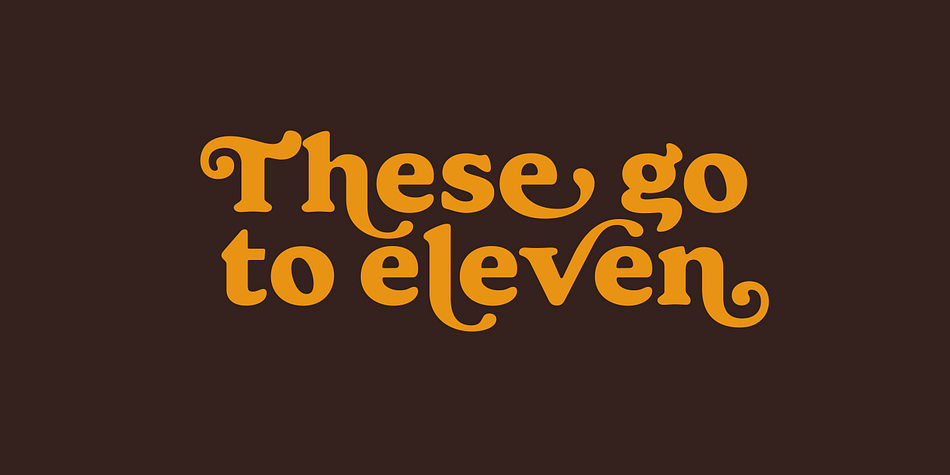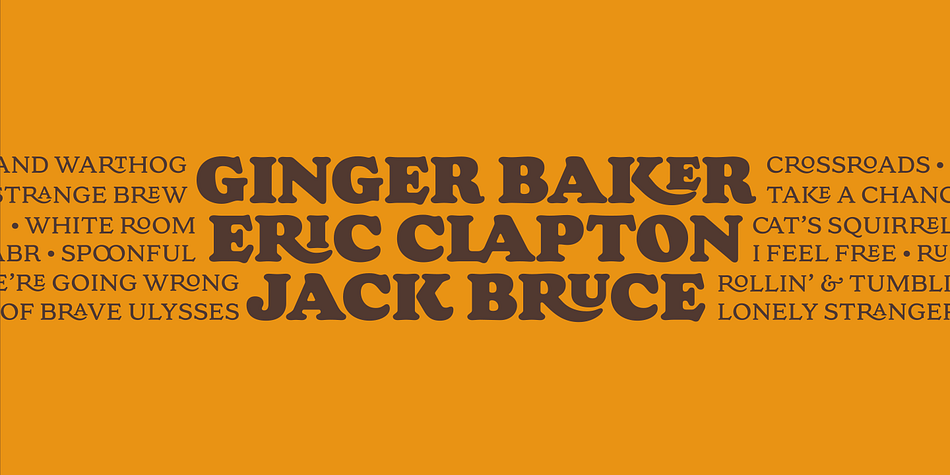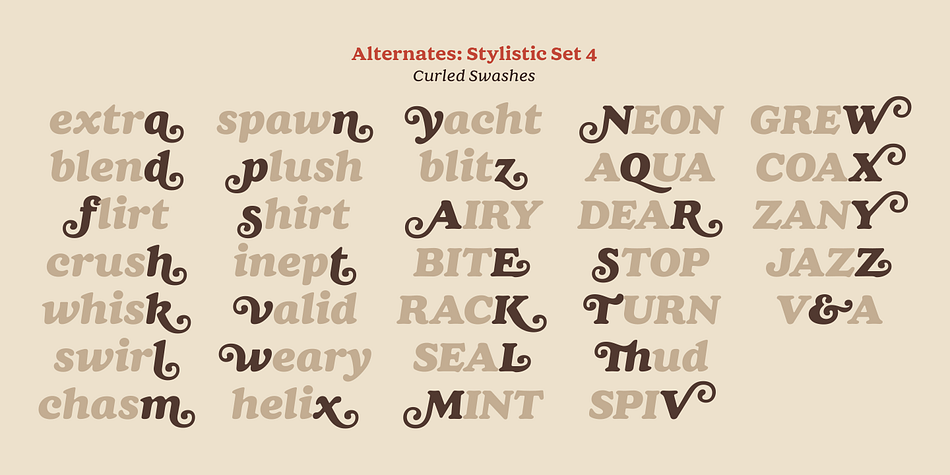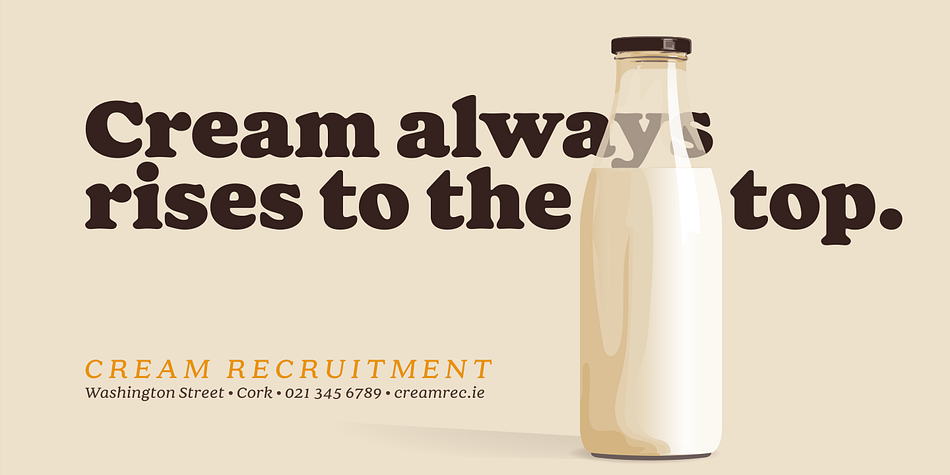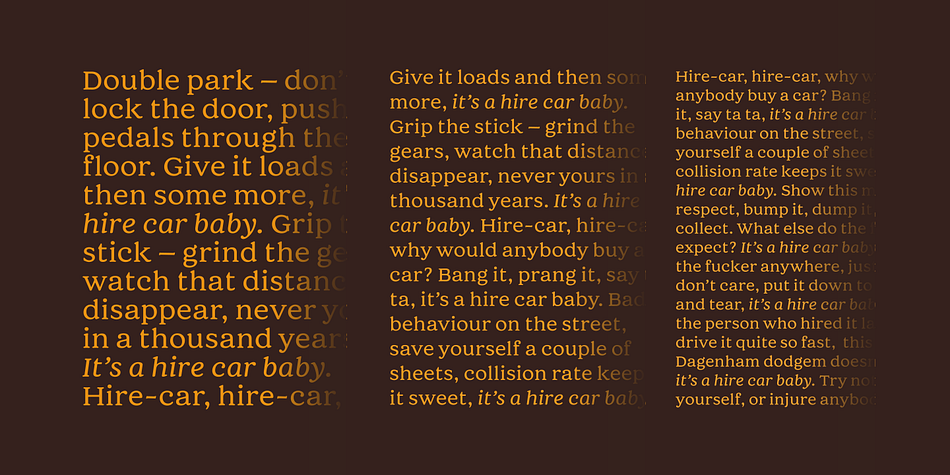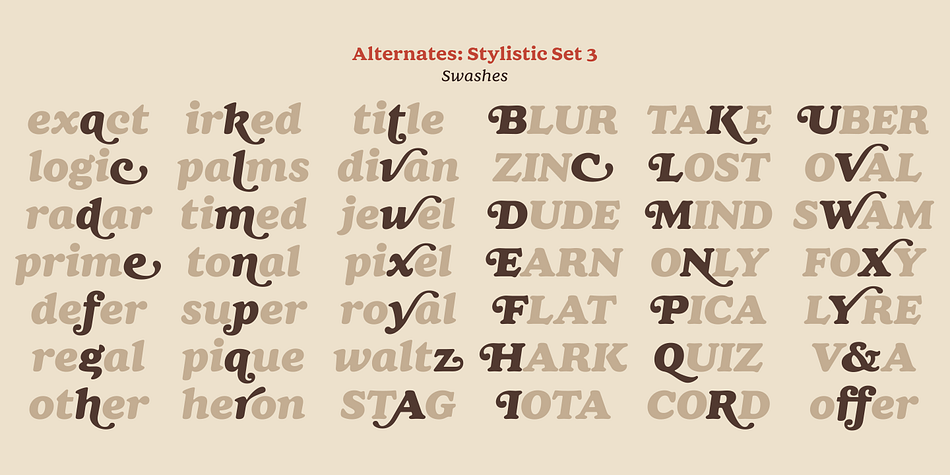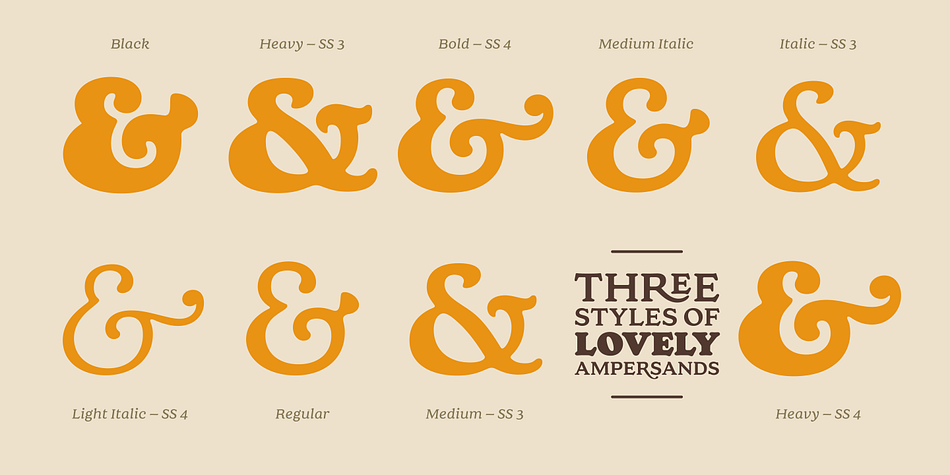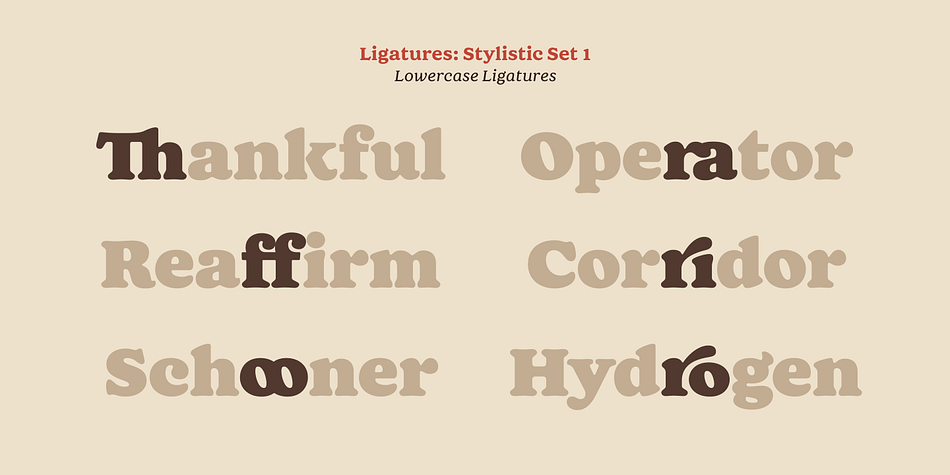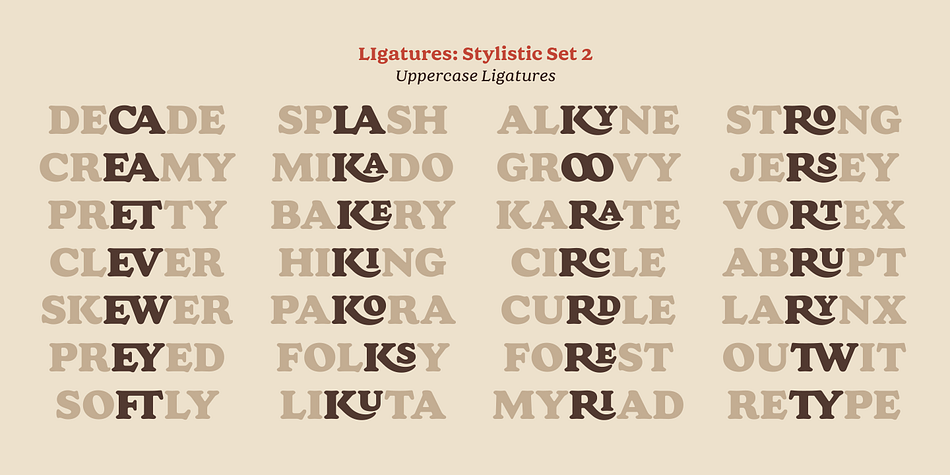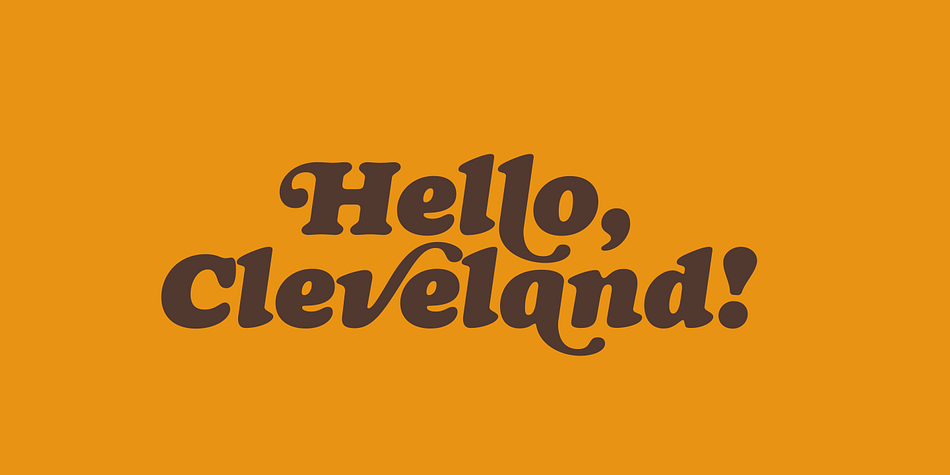
Designed by Paulo Goode, Cream is a retro and serif font family. This typeface has twelve styles and was published by Paulo Goode.
Cream is a big softy! This retro soft serif typeface comprises 12 fonts and can handle most typographic applications from branding to body copy with its range of weights and inherent legibility. Whatever you type will have a friendly message, but it really comes into its own when you start applying some of the additional alternates and ligatures that are built into Cream. You’ll be creating distinctive typographic compositions that are pleasing to the eye in no time at all!
There are 12 fonts altogether, ranging from Light to Black weights in both roman and italic. It has an extensive character set that covers all Latin European languages.